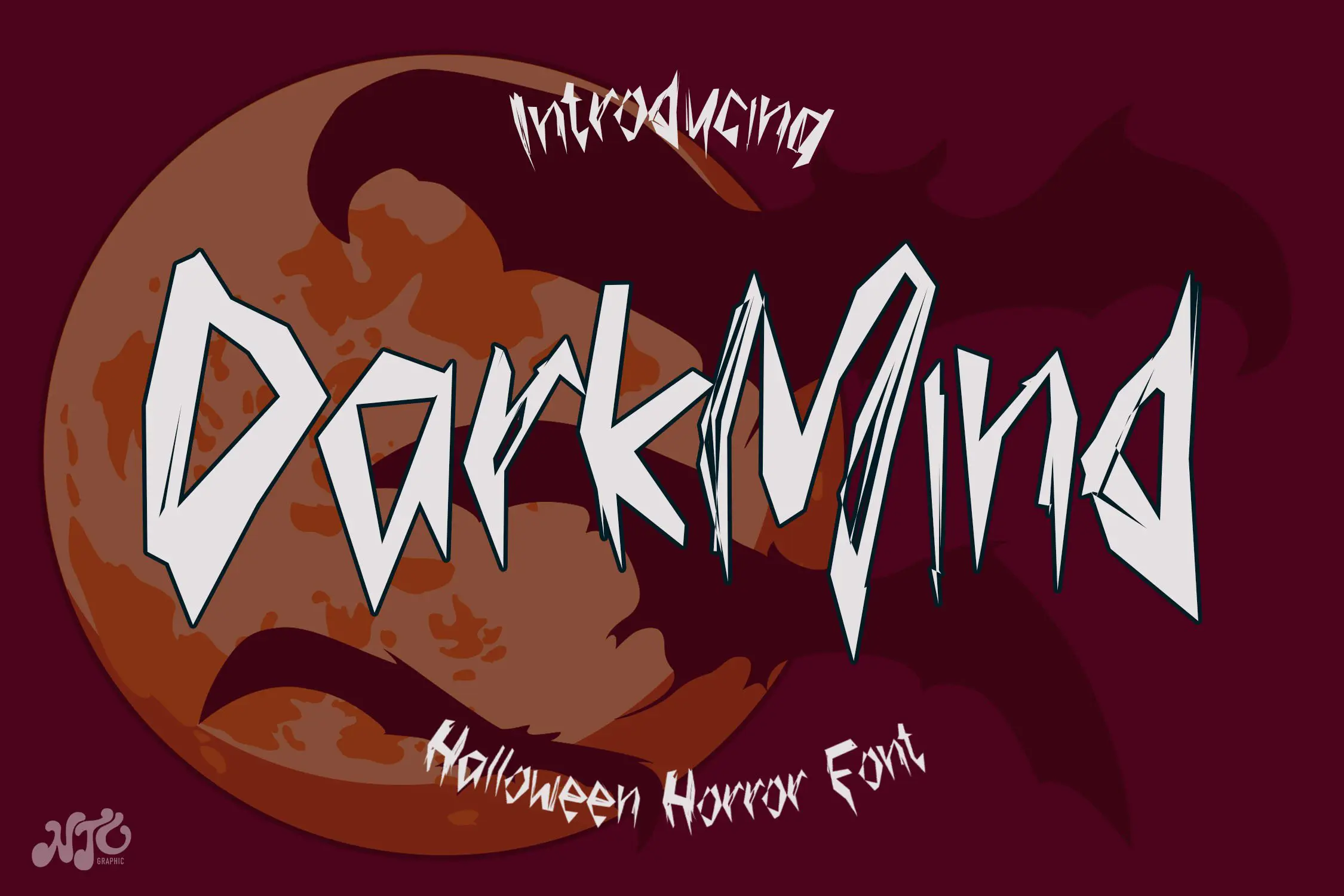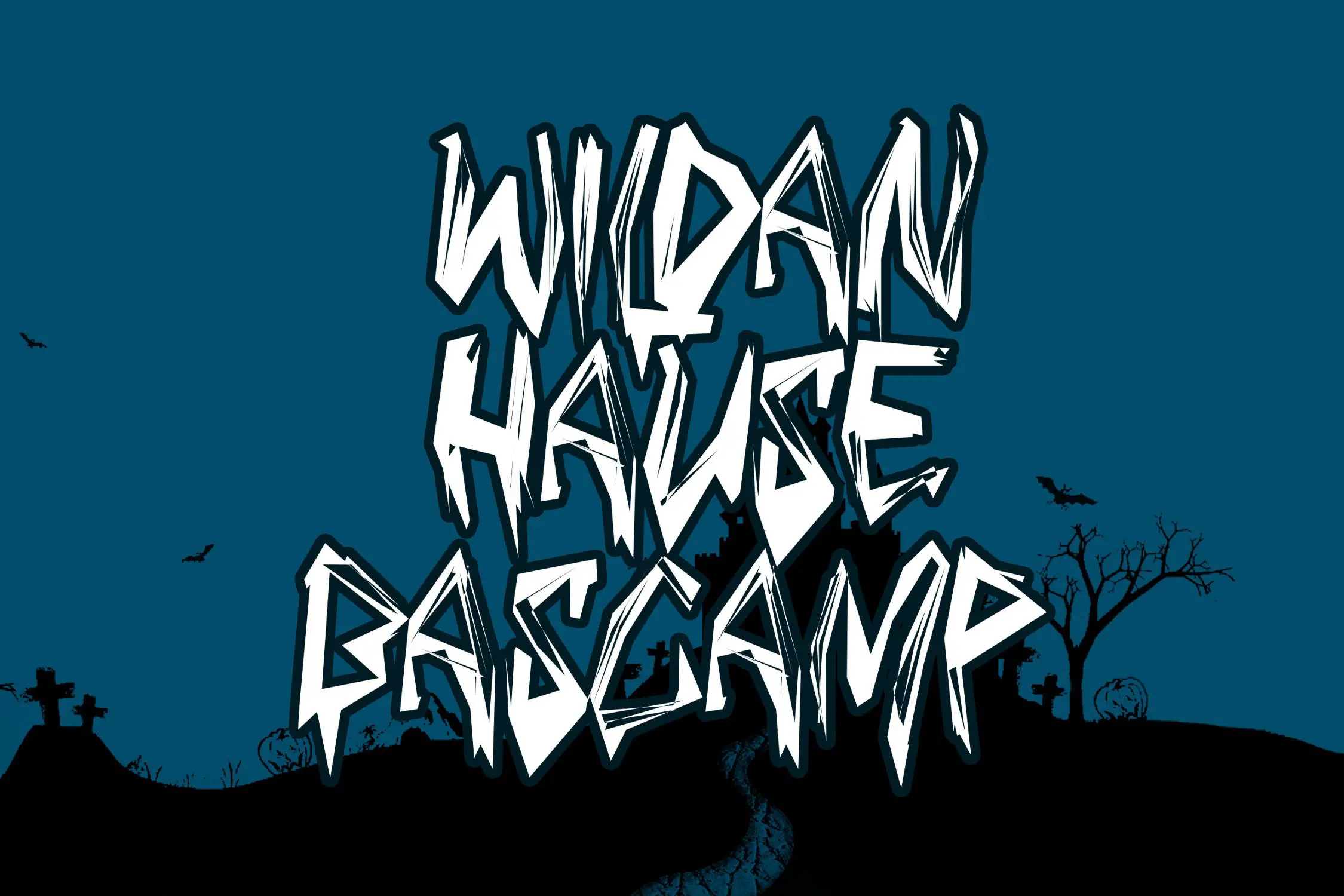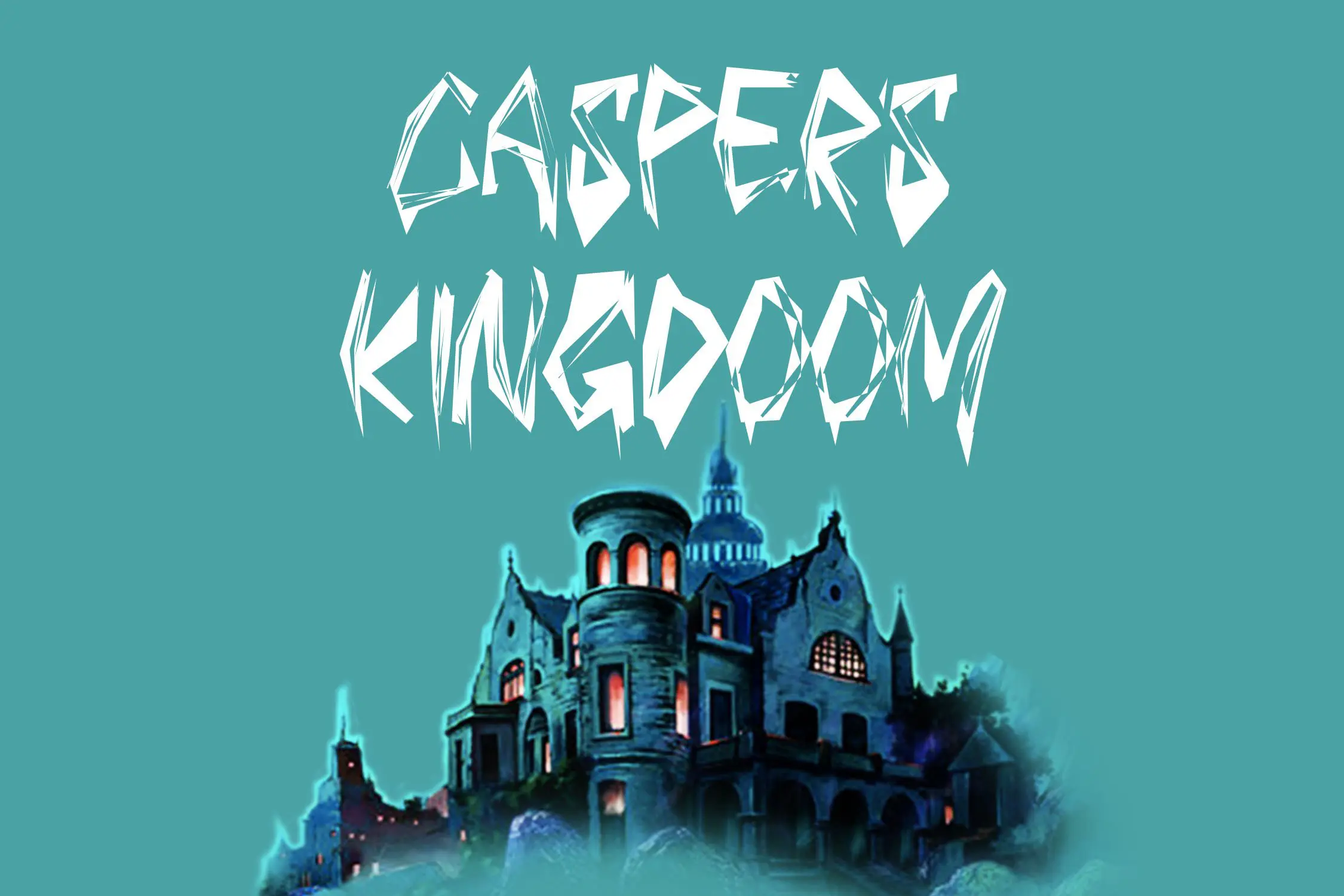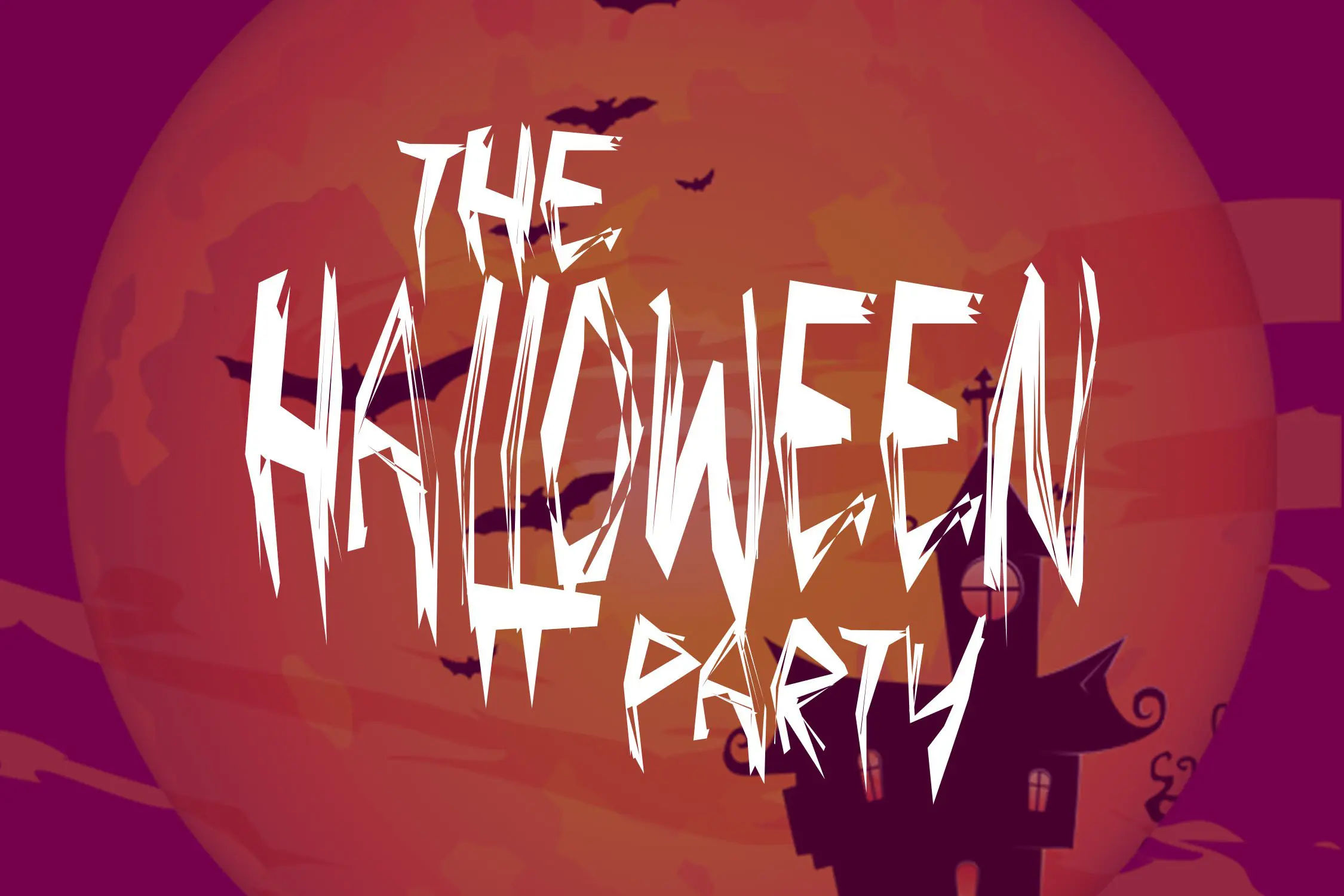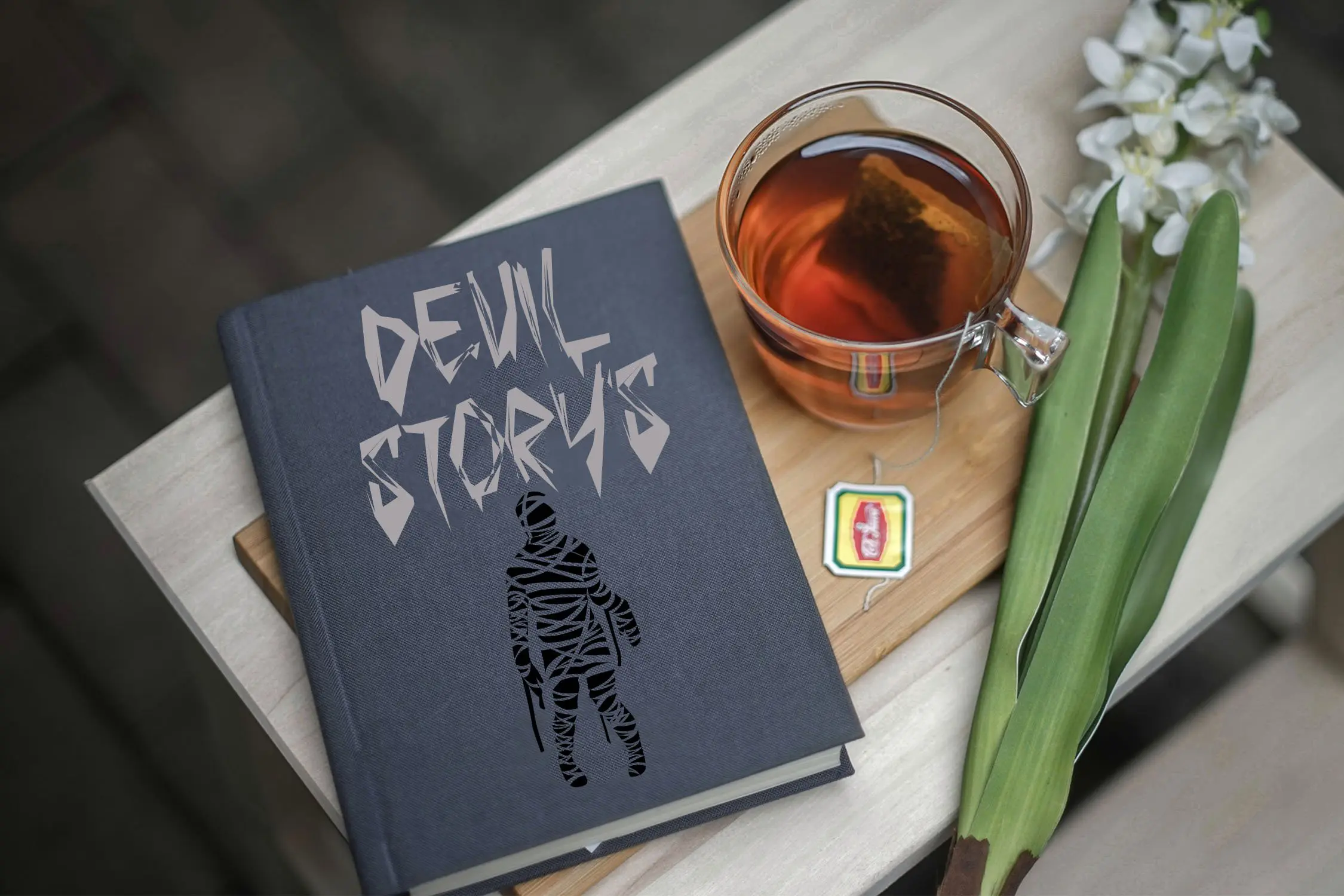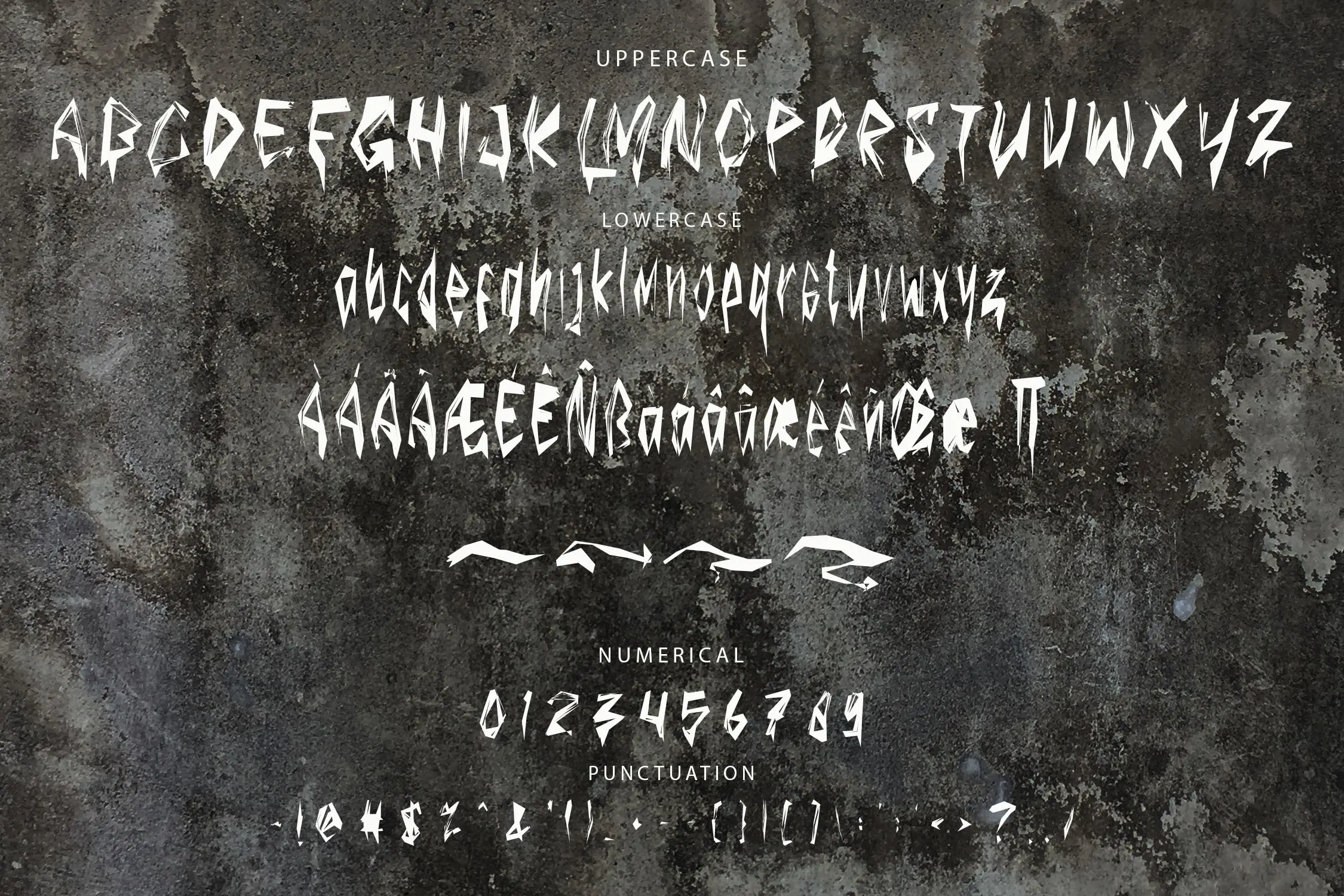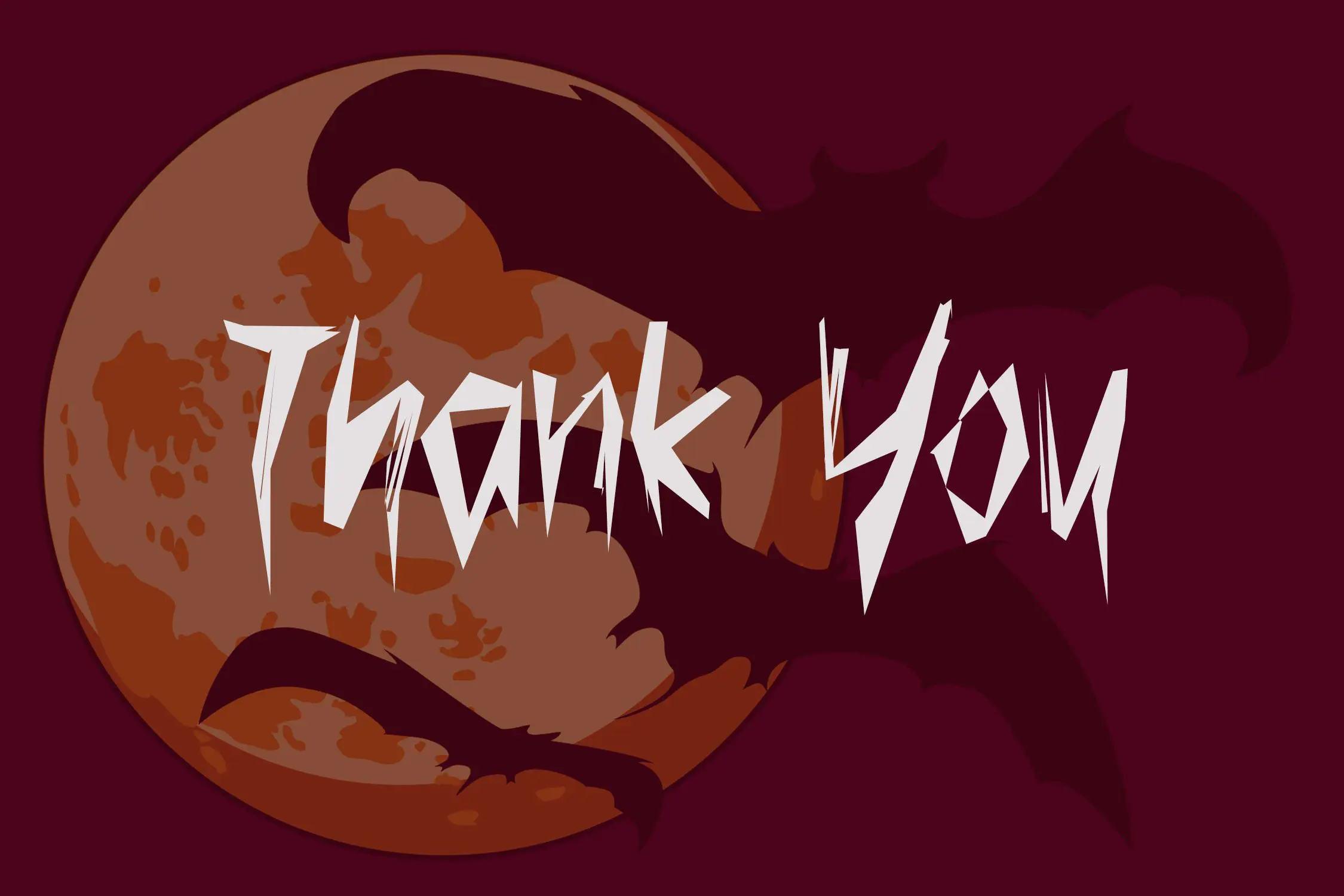
Dark Mind is a horror Halloween font with a very unique shapes character. This font is perfect for Halloween card and Halloween banner designs. This font is suitable for making previews and covers, horror logo designs, shirt designs, and other horror graphic needs.
- Ligature
- Stylistic Alternate
- Swashes
- Multilingual Support